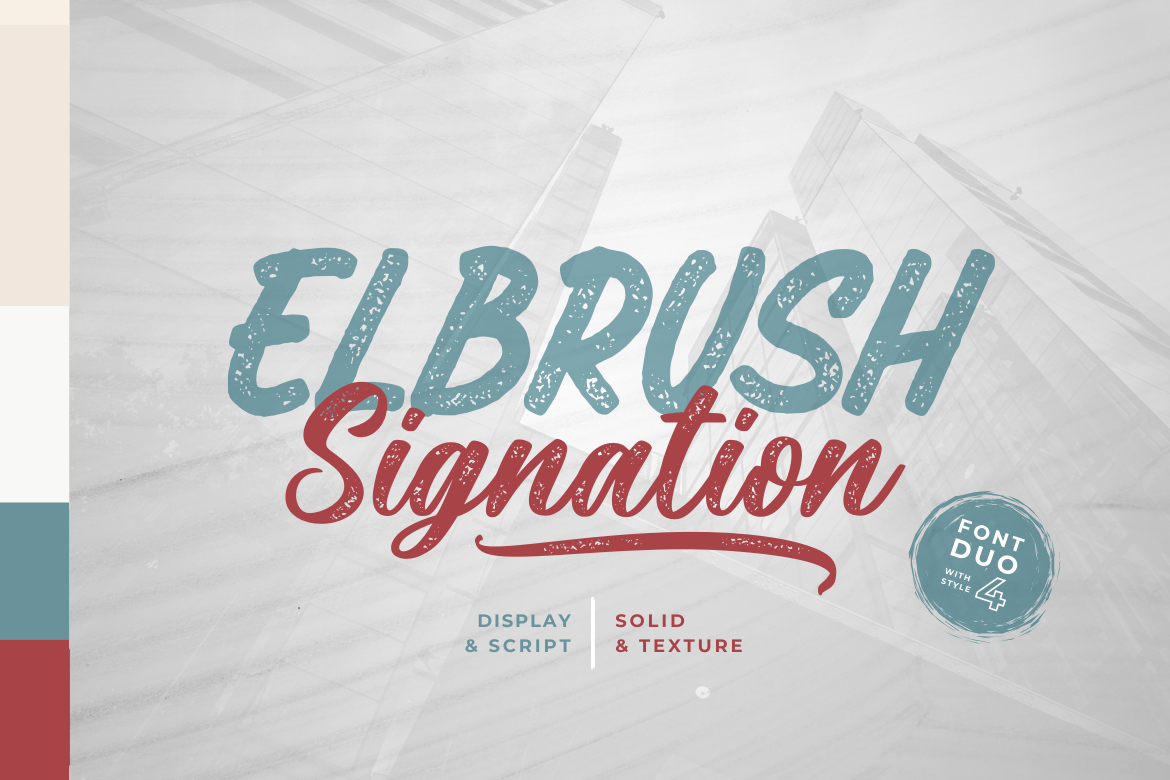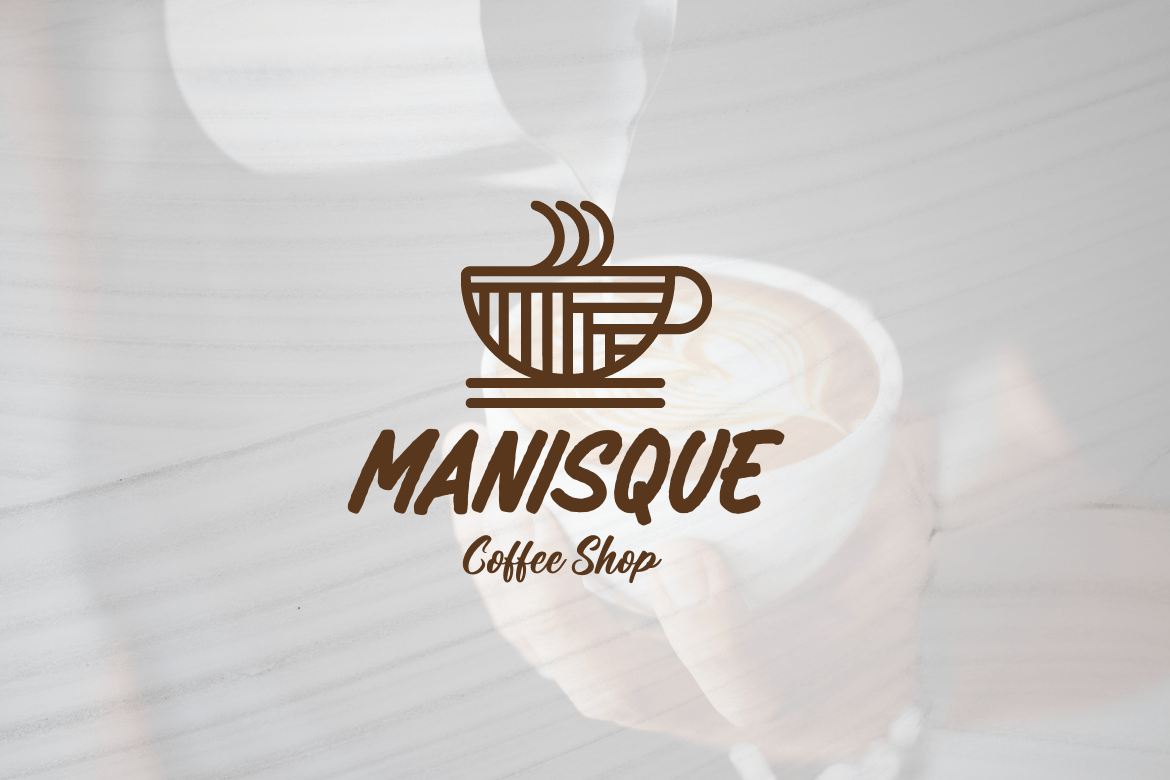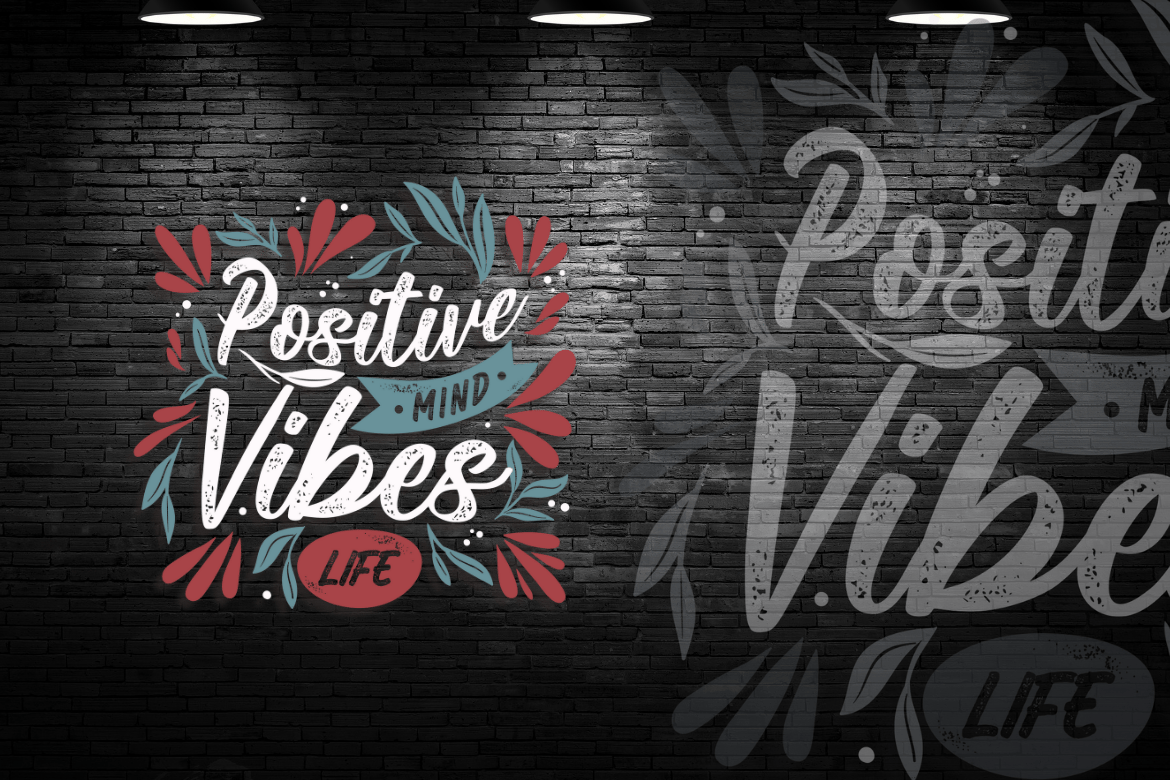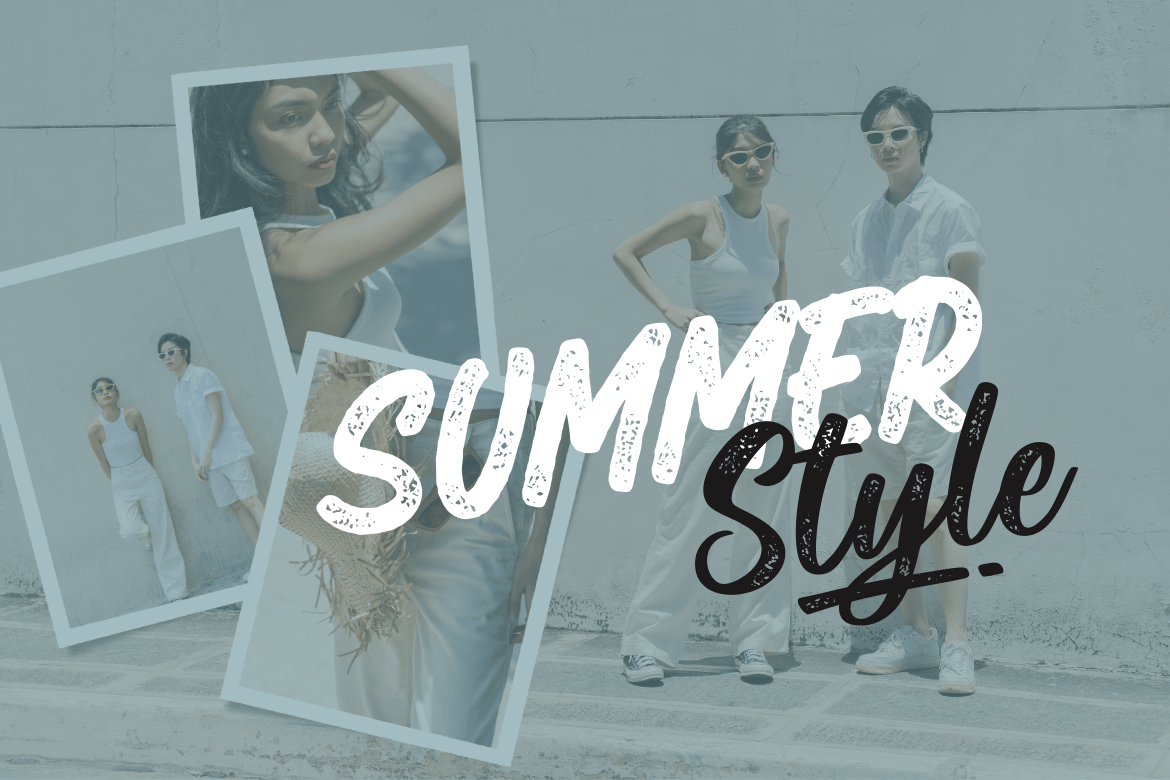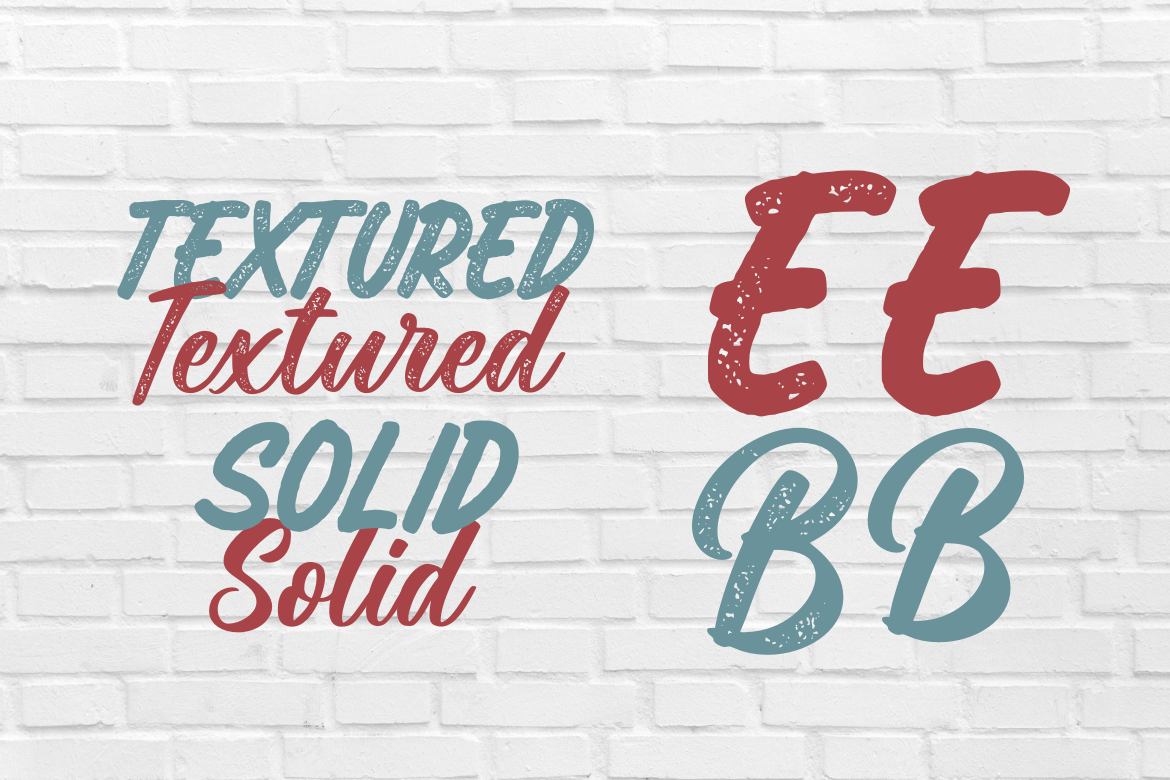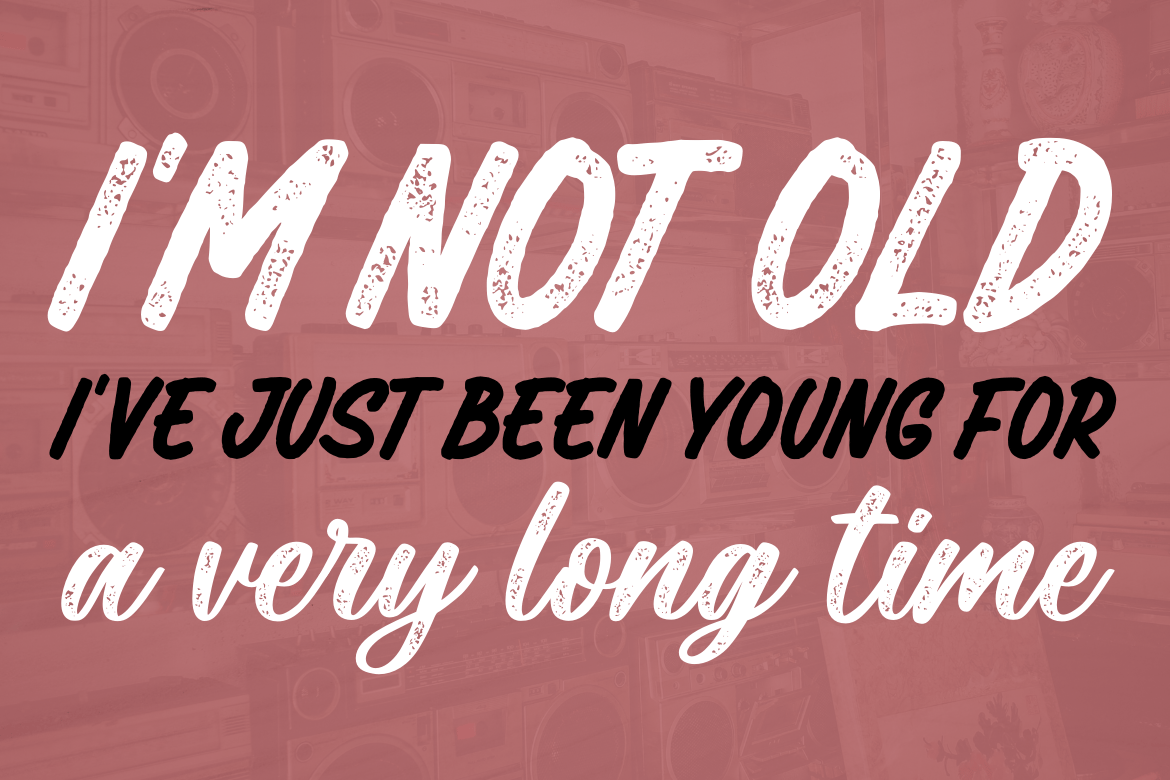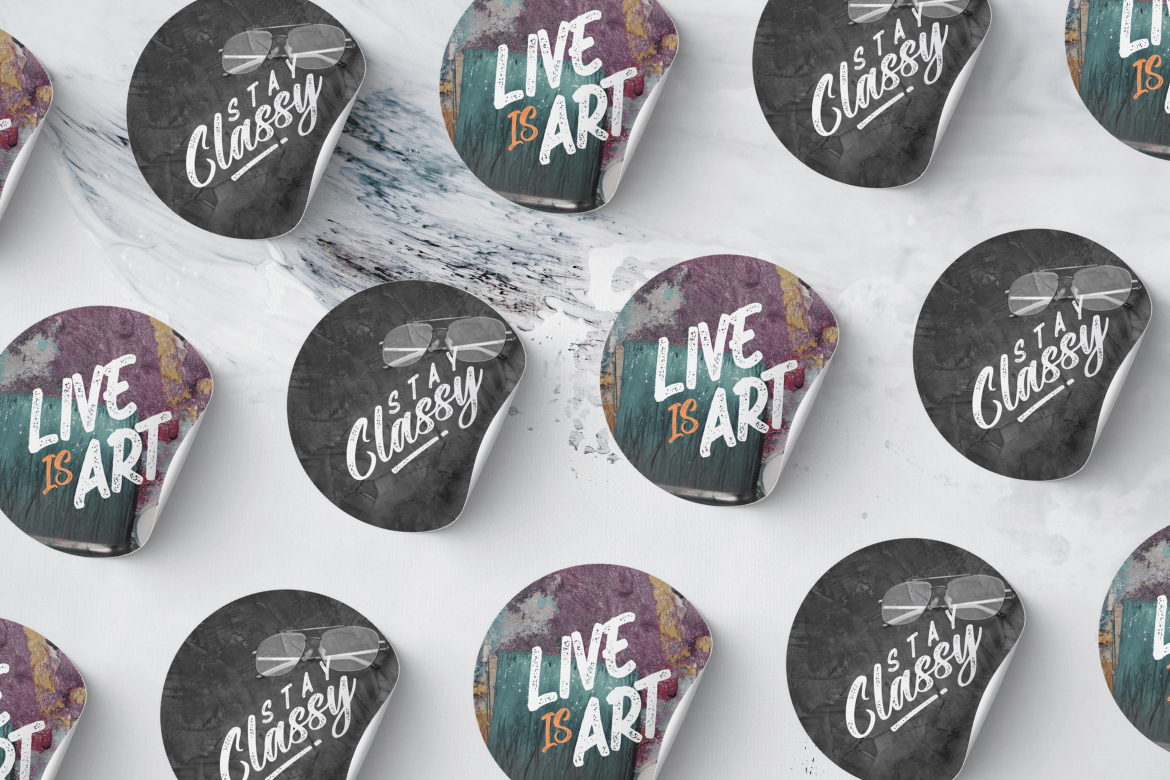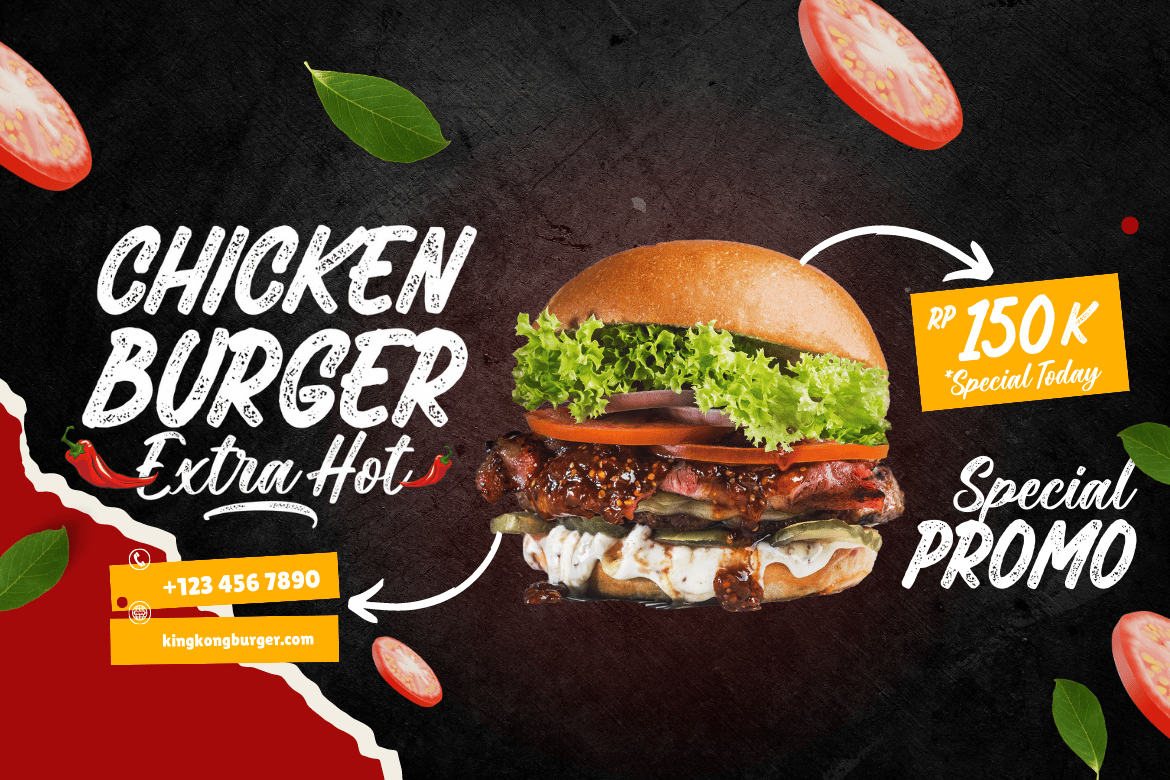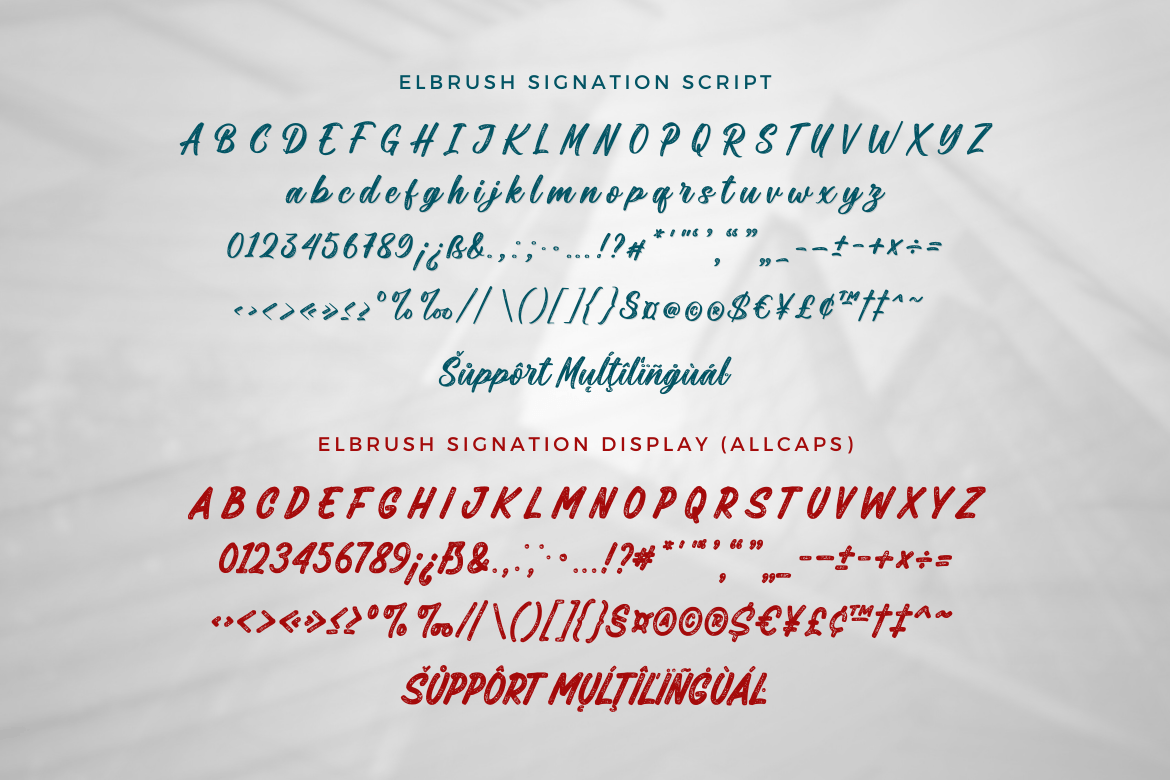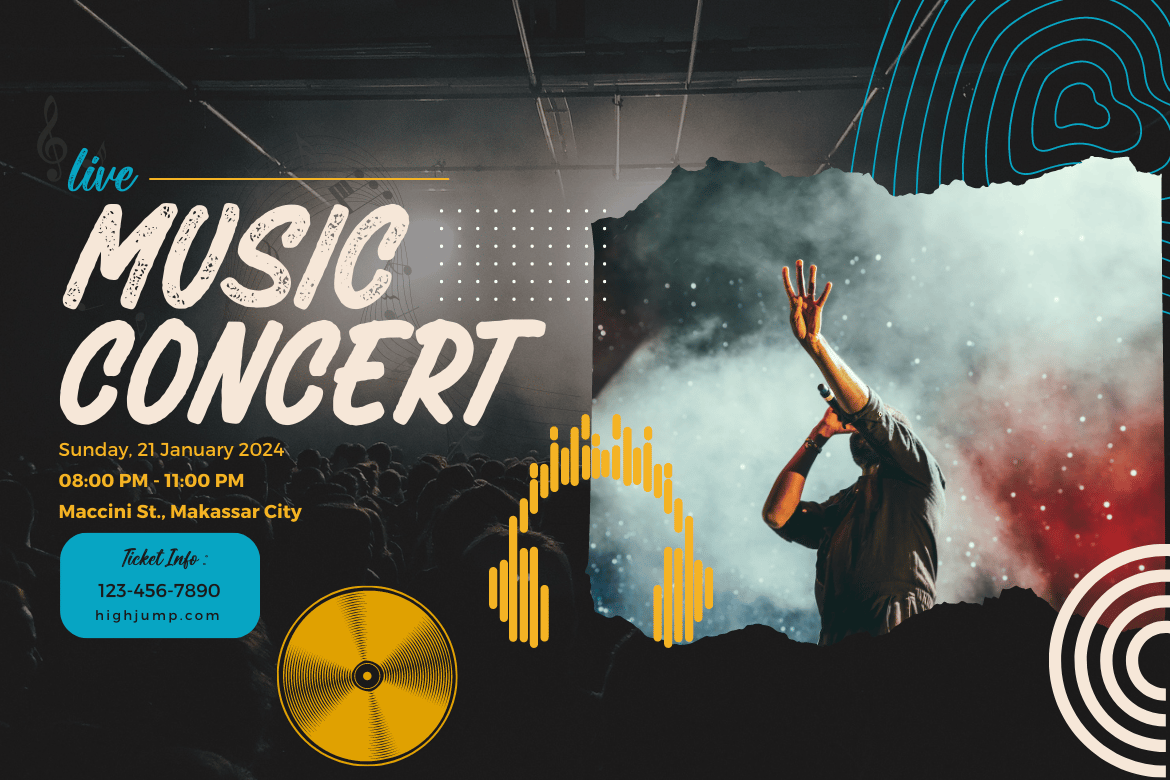
Elbrush Signation Font Duo
Introducing, Elbrush Signation is a versatile font duo with textured and solid versions that can meet a variety of design needs, with multilingual support ensuring its adaptability to various contexts. Whether you’re creating a fancy logo or designing stunning packaging, Elbrush Signation is your choice for creating distinctive and memorable typography.
- A set of uppercase and lowercase glyphs
- Number, symbol, and punctuation
- Swashes (script)
- Solid Version